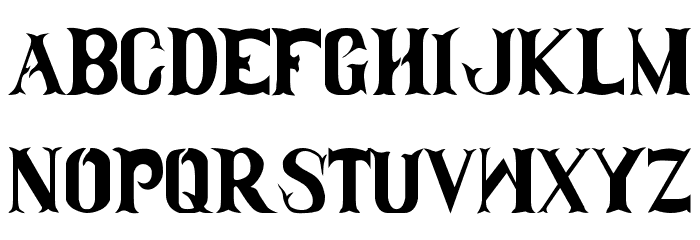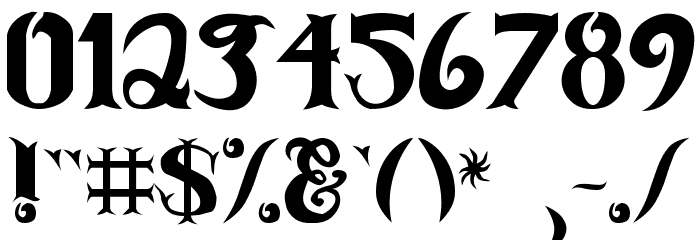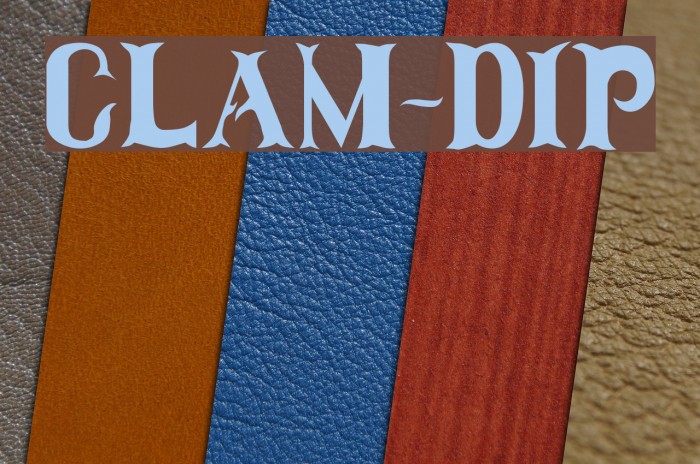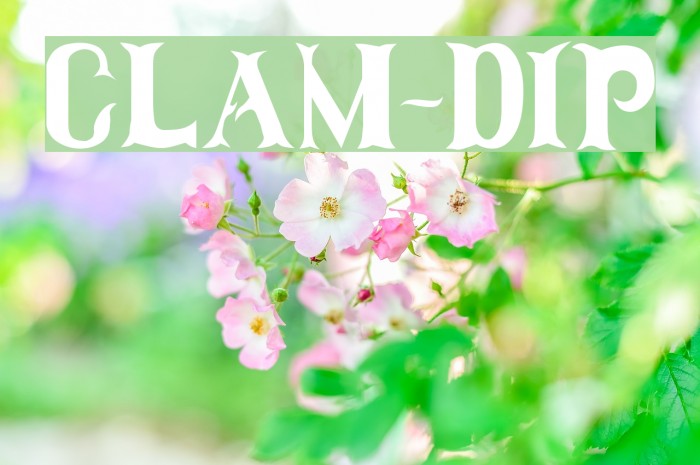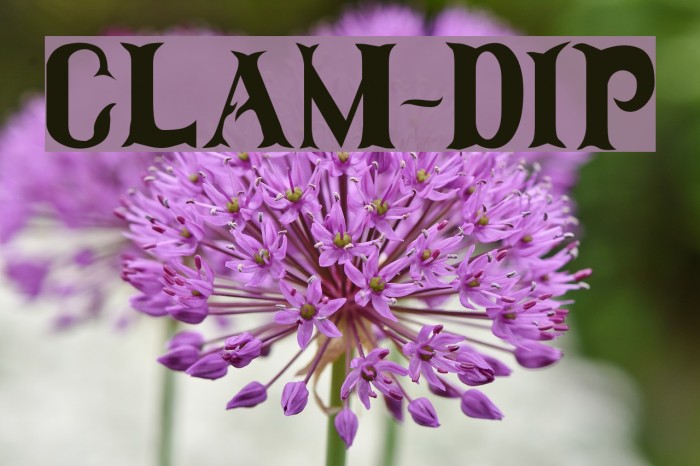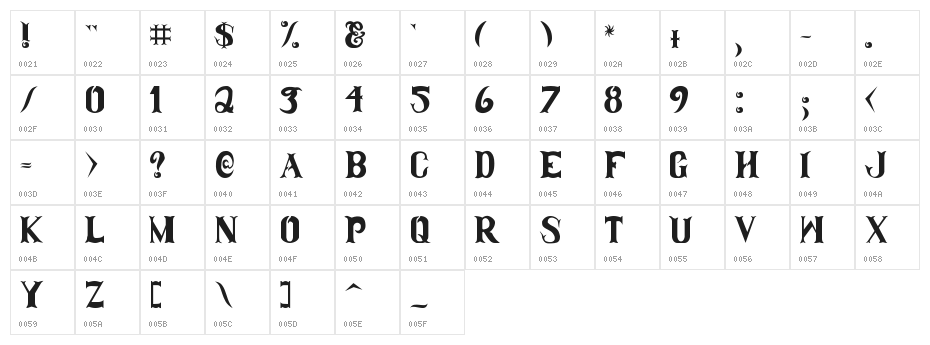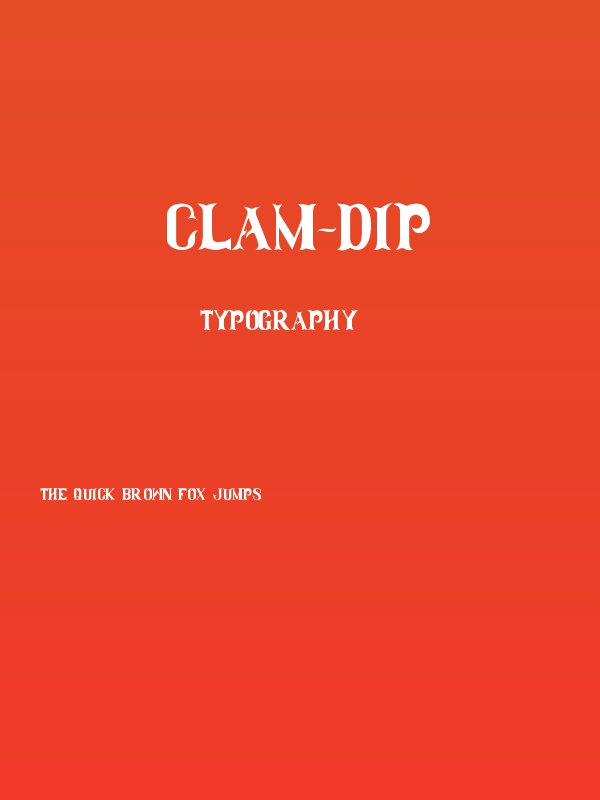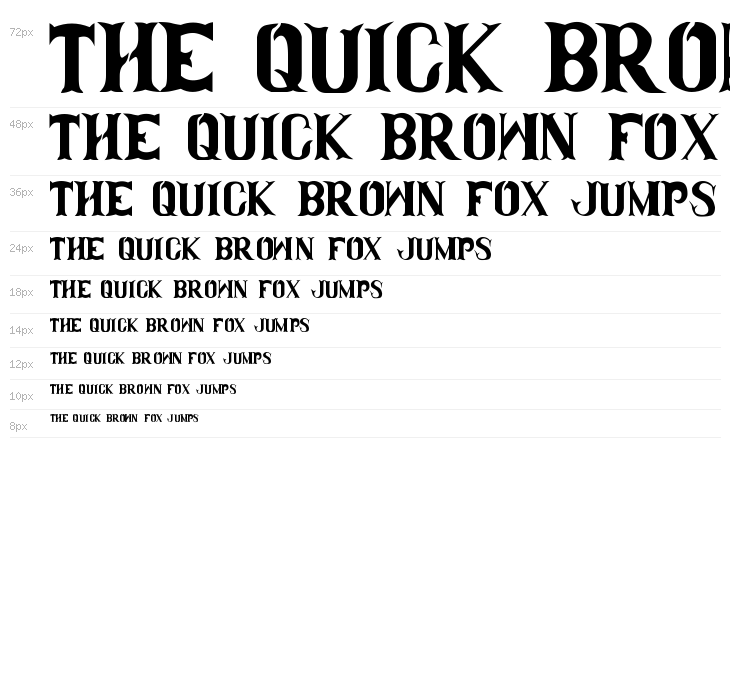
Clam-Dip Font
This font features a bold and dramatic style with sharp, angular serifs and a distinct Gothic influence. The characters are intricately designed with a high level of detail, making them stand out with a unique flair. The uppercase letters are particularly striking, with exaggerated curves and pointed edges that give the font a medieval, almost calligraphic appearance. The numerals and special characters maintain this ornate style, ensuring consistency across the entire typeface. This font is ideal for projects that require a strong visual impact and a touch of historical elegance.
A bold, Gothic-inspired font with sharp serifs and intricate details.
- Proposed Projects: Suitable for branding, posters, book covers, and any design needing a dramatic and historical touch.